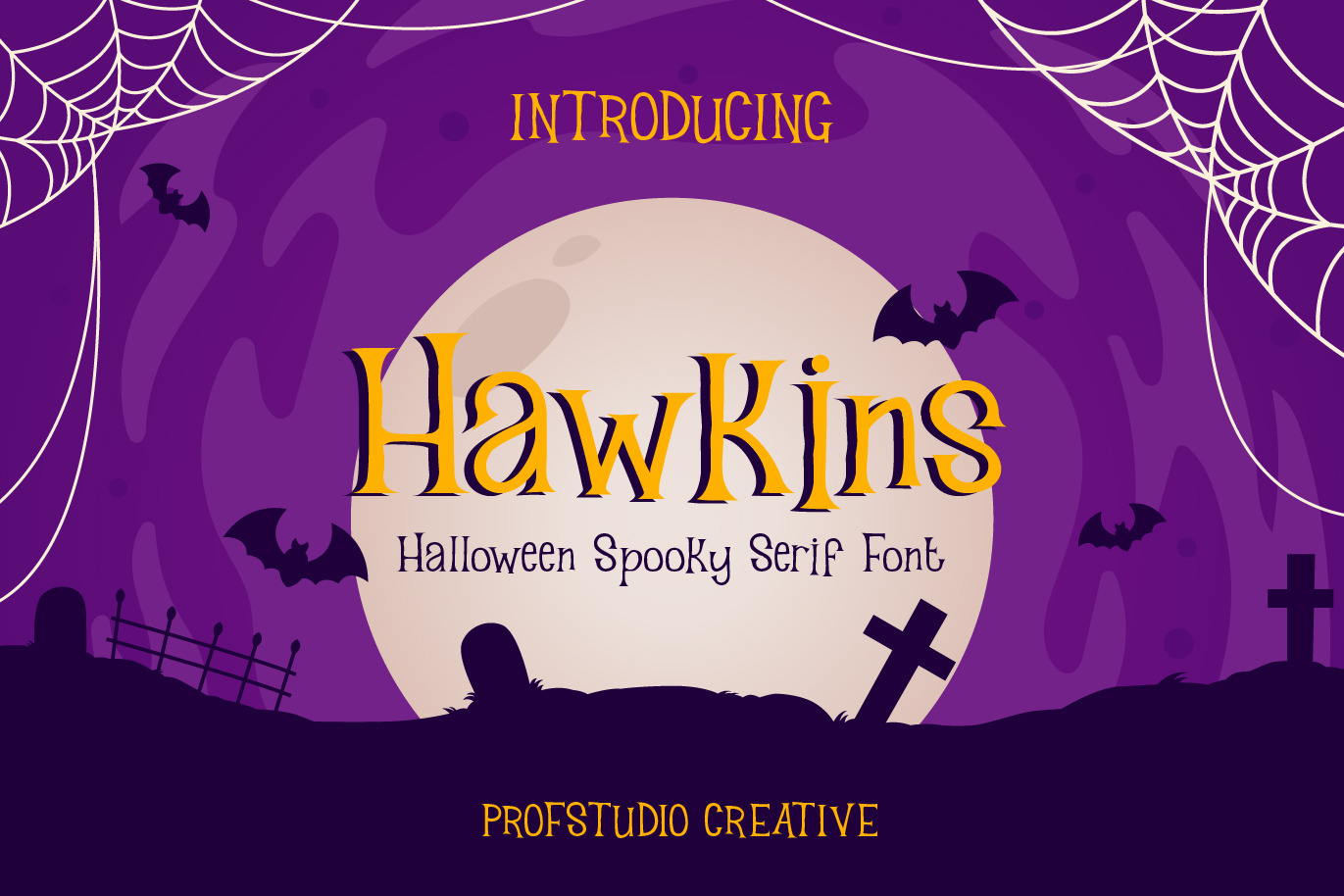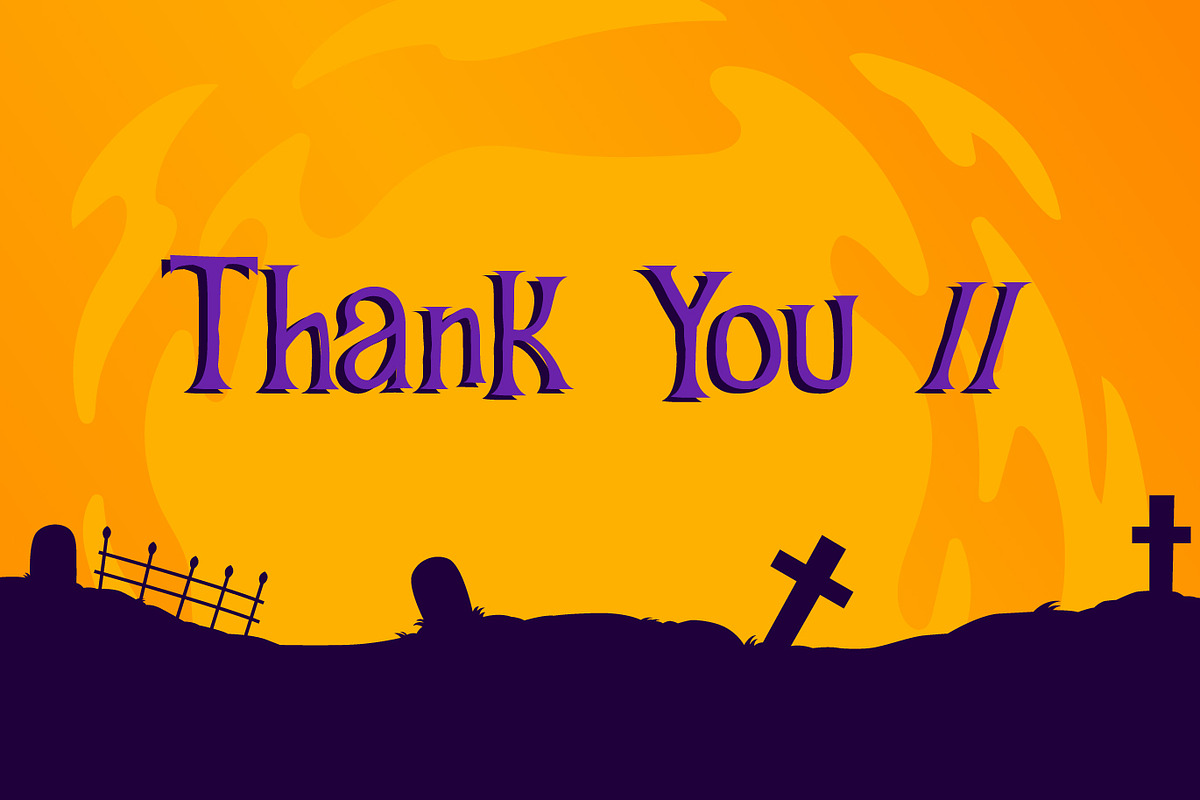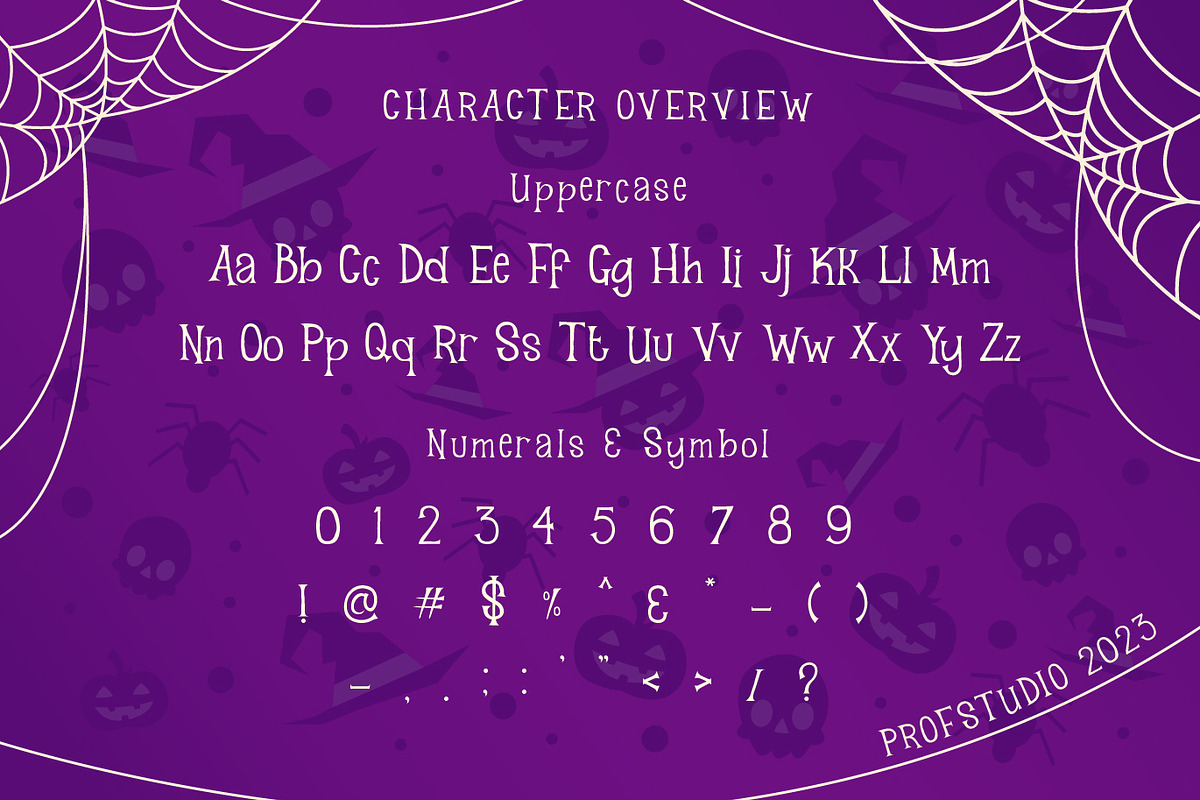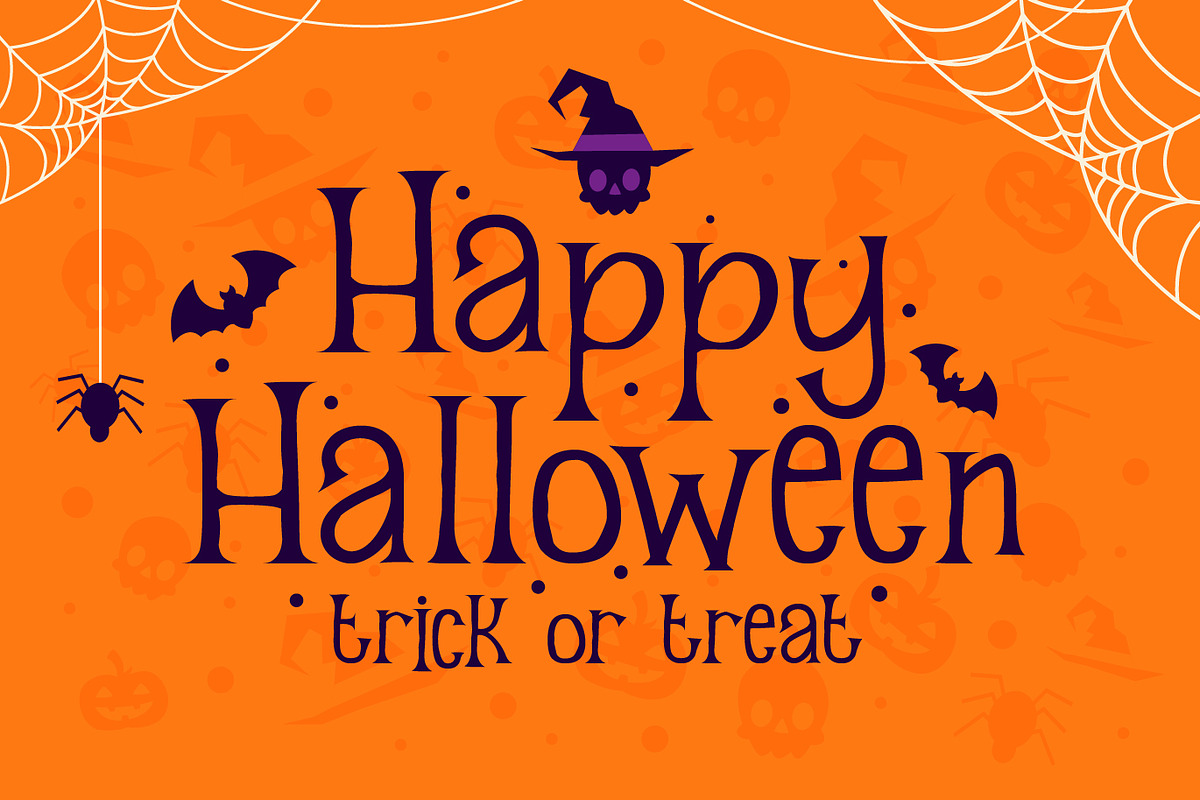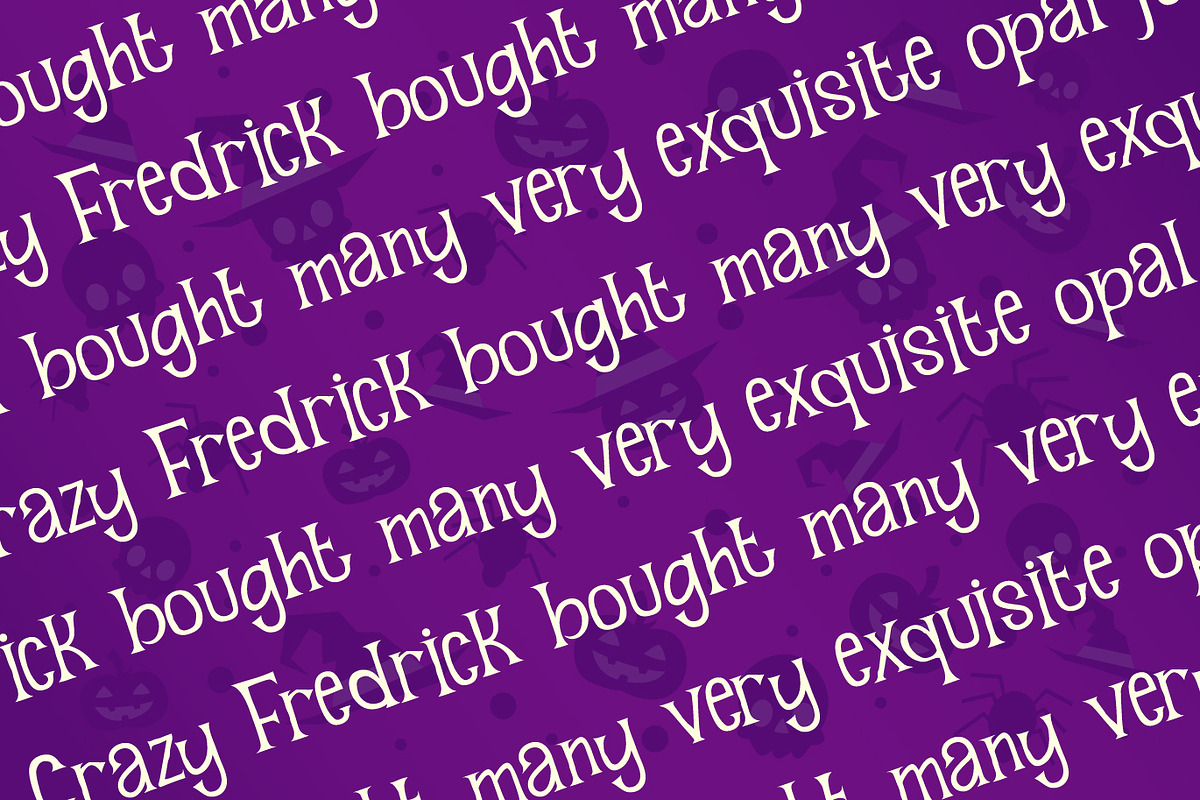
Hawkins - Halloween Spooky Font
**Hi Ladies and Gentleman ! Proudly present Halloween Spooky Serif Font “Hawkins” for your business.
Hawkins - Decorative Font which can be interpreted professional. we keep this font looks playful, spooky, horror, readable, stylish, catchy and easy to use.
Hawkins - is the great choice for event design ,magazine and many other design project. Hawkins here to make your work to high level!!!
- Standar character A-Z and a-z